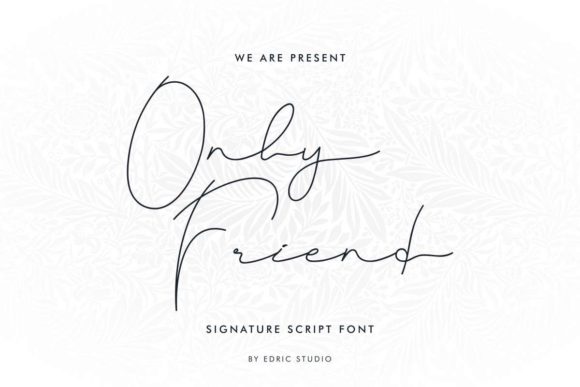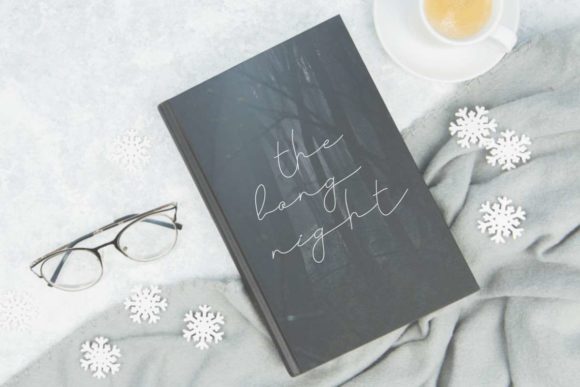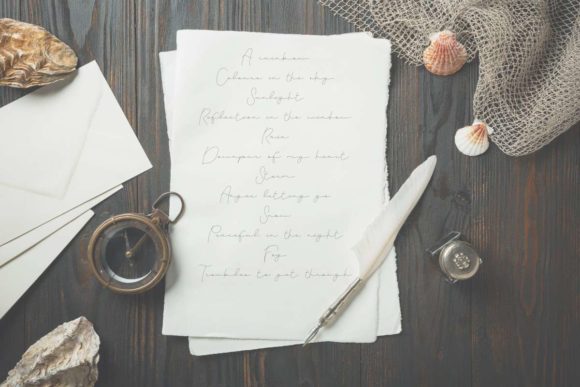
Introduction to Only Friend Font
Have you ever stared at a blank page, waiting for inspiration to strike and bring your creative project to life? For many designers, this is a familiar scene – the thrill of possibility, the uncertainty of outcome. But what if you had the perfect design resource to spark that creative fire? Enter the Only Friend Font, a delicate and elegant handwritten font that’s sure to elevate your designs and make them shine.
As a valuable addition to your design toolkit, the Only Friend Font offers a level of sophistication and refinement that’s hard to find in other fonts. Its beautiful, well-balanced characters make it a versatile choice for a wide range of designs, from elegant invitations to creative marketing campaigns. And the best part? You can download it for free, with a transparent background that’s perfect for use on any design project.
Whether you’re a seasoned designer or just starting out, the Only Friend Font is a high-quality resource that’s sure to become your go-to choice for creative projects. So why wait? Download the Only Friend Font today and discover a new world of design possibilities.
Key Features of Only Friend Font
- Unique, hand-drawn style with transparent background for versatile usage in design.
Honest Review: Only Friend Font
As a designer, I’m always on the lookout for high-quality design resources to enhance my creative projects. Recently, I stumbled upon the Only Friend Font, and I’m excited to share my honest review with you.
What works well about the Only Friend Font is its unique and playful style, which makes it perfect for adding a touch of personality to your designs. The font is available for free download, which is a major plus for designers on a budget. The transparent background also makes it easy to use in various design scenarios.
- ✨ Unique and playful style
- ✨ Transparent background
However, there are some limitations to consider. The font may not be suitable for formal or professional designs, as its playful style may not convey the right tone. Additionally, the font’s style may not be as versatile as other fonts, making it less suitable for complex or intricate designs.
Overall, I would give the Only Friend Font 3.5 out of 5 stars. While it’s a great addition to any design project, its limitations should be carefully considered before using it.
- ⚠️ May not be suitable for formal or professional designs
- ⚠️ Limited versatility
The Only Friend Font is a versatile and high-quality font ideal for various creative projects. It is available for free download, offering a transparent background that makes it easily editable and customizable.